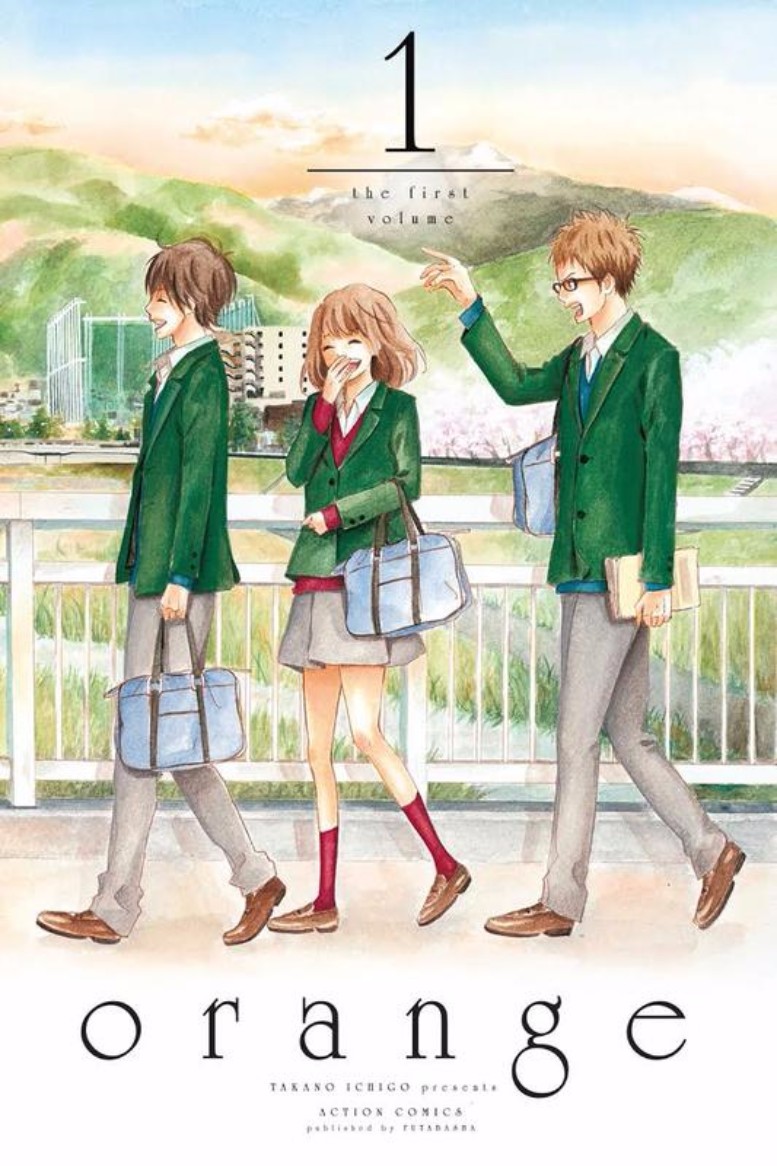
Orange (manga) Font
BookOrange is a Japanese manga series written and illustrated by Ichigo Takano. It was serialized in Kodansha's Weekly Shōnen Magazine from 2012 to 2015 and was licensed for an English-language release by Seven Seas Entertainment. Orange is a science fiction romance story that follows the life of a high school girl named Naho Takamiya, who receives letters from her future self urging her to avoid having her "worst regrets," which involve a boy named Kakeru Naruse, a recent transfer student from Tokyo.
University Roman is the font used for the manga series title on the cover. University is an ornamental font based on Speedball hand-lettering and is distinguished by its slender capitals with crossbars that rise significantly over the median line.